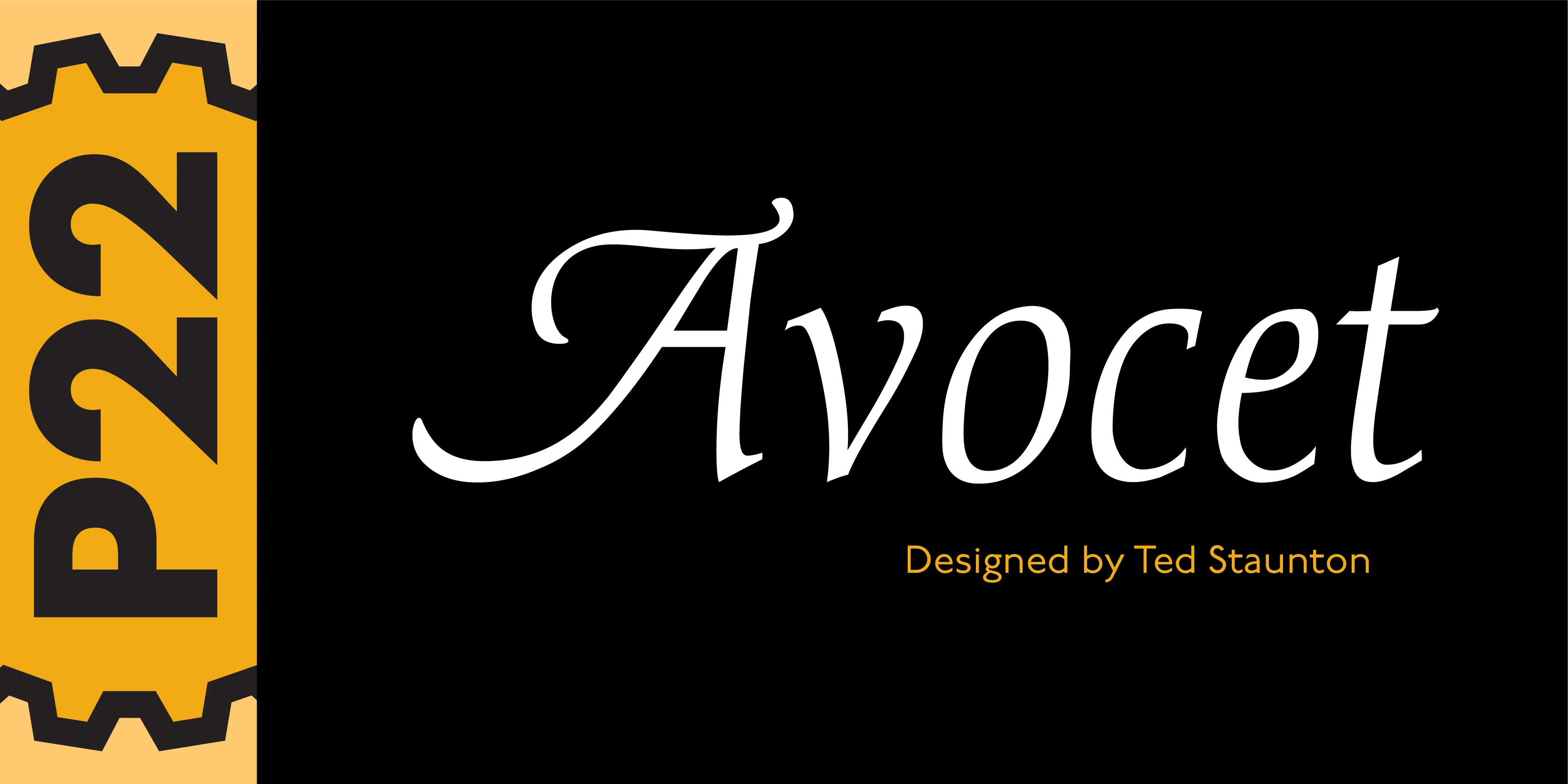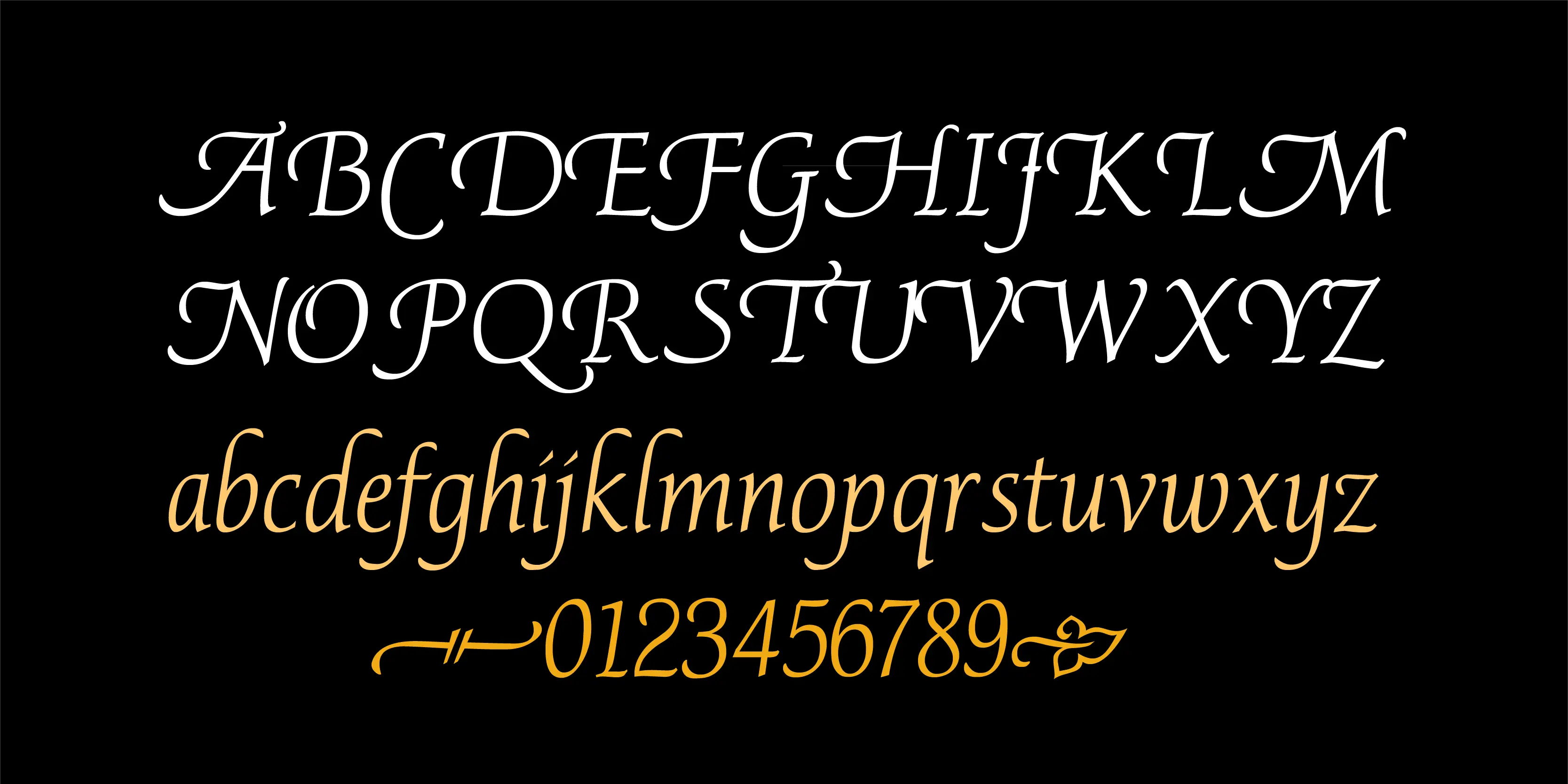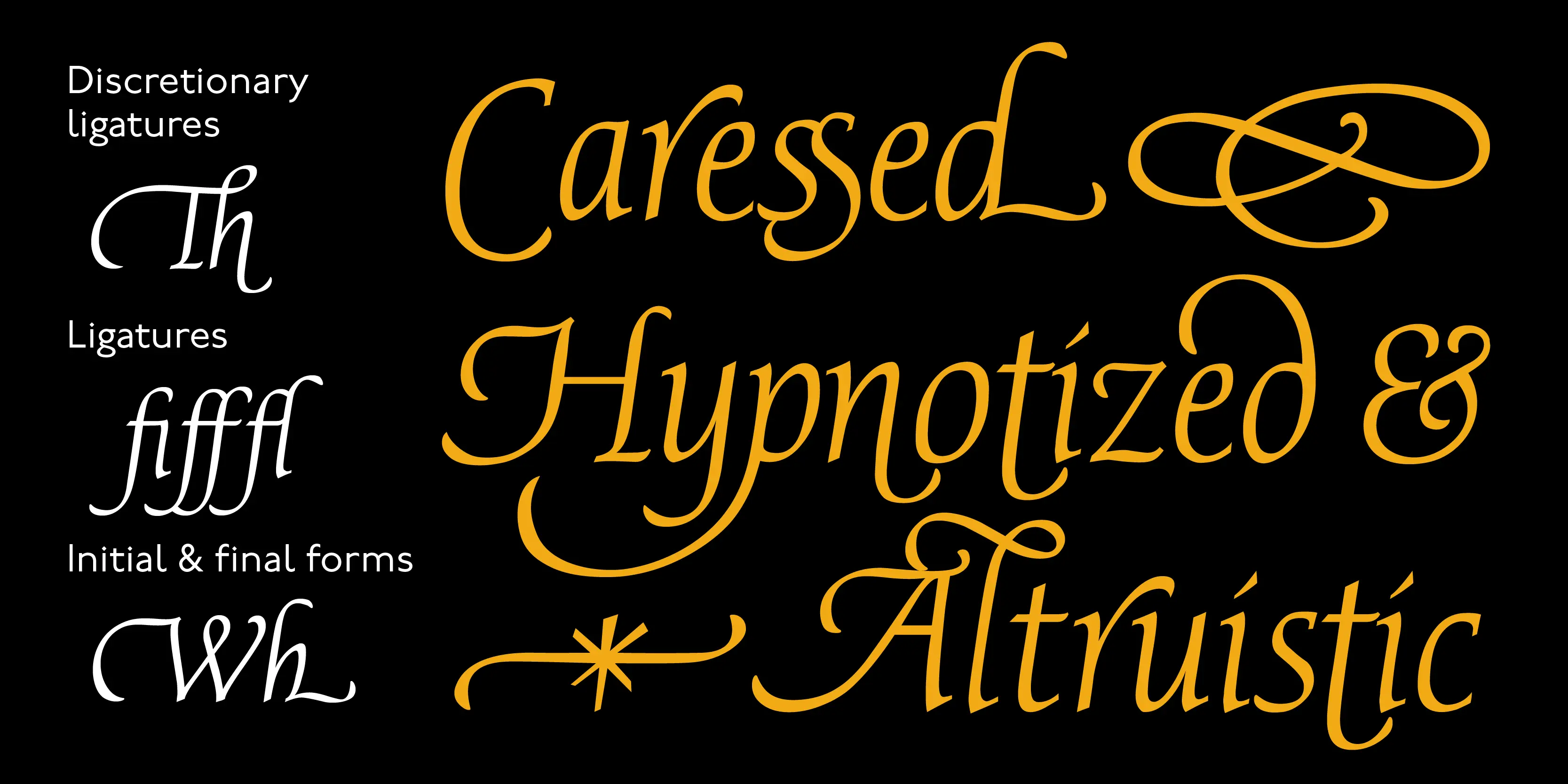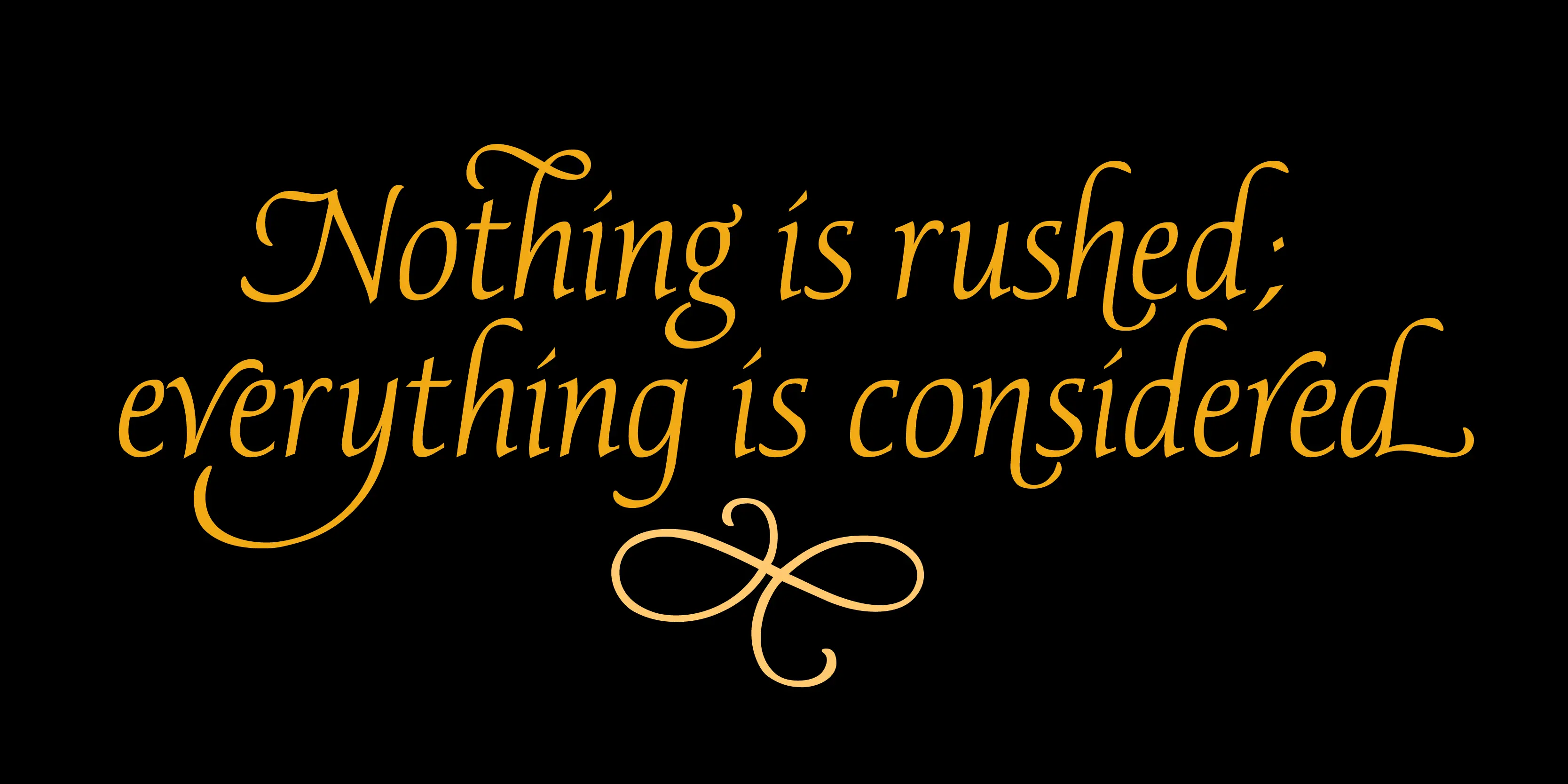
Avocet Font
Avocet
A light chancery script font influenced by both the Script-held pen and the typefounder’s machinery. The curves are reminiscent of the beak of the avocet, a wading bird. This font was originally engraved in metal and copper matrices made for casting into hot metal type for letterpress printing.
• Ornaments
• Swashes
Ornaments
Swashes